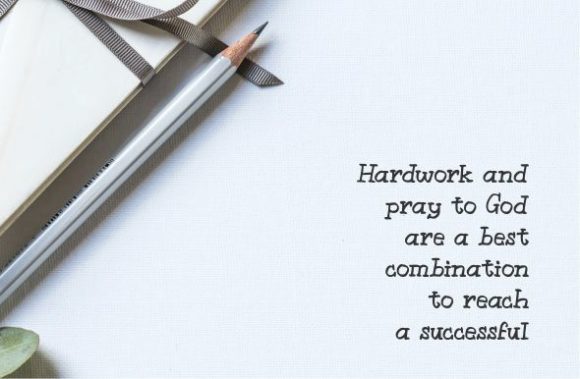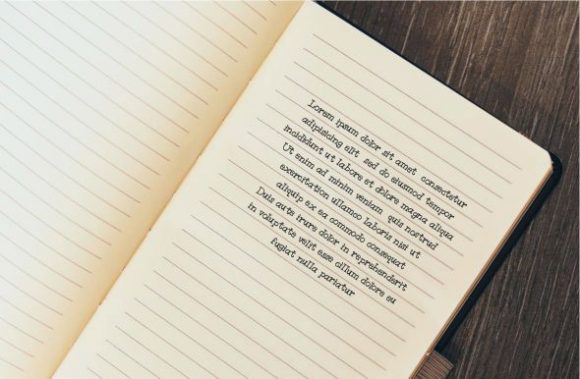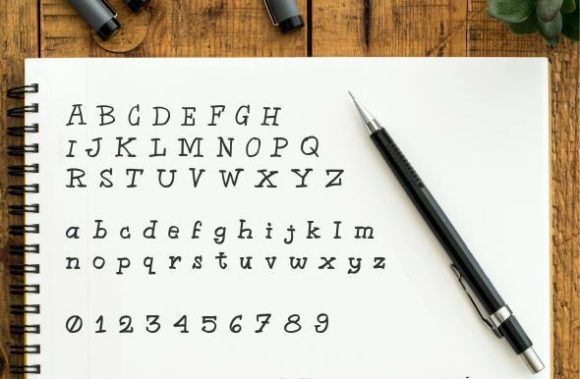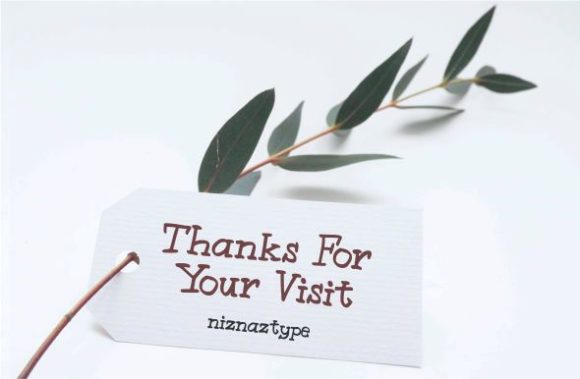
Meximall Font
About Meximall Font
Meximall is an incredibly unique handwritten font. Its quirky style makes this font versatile, fitting a wide range of designs, both formal and non-formal!